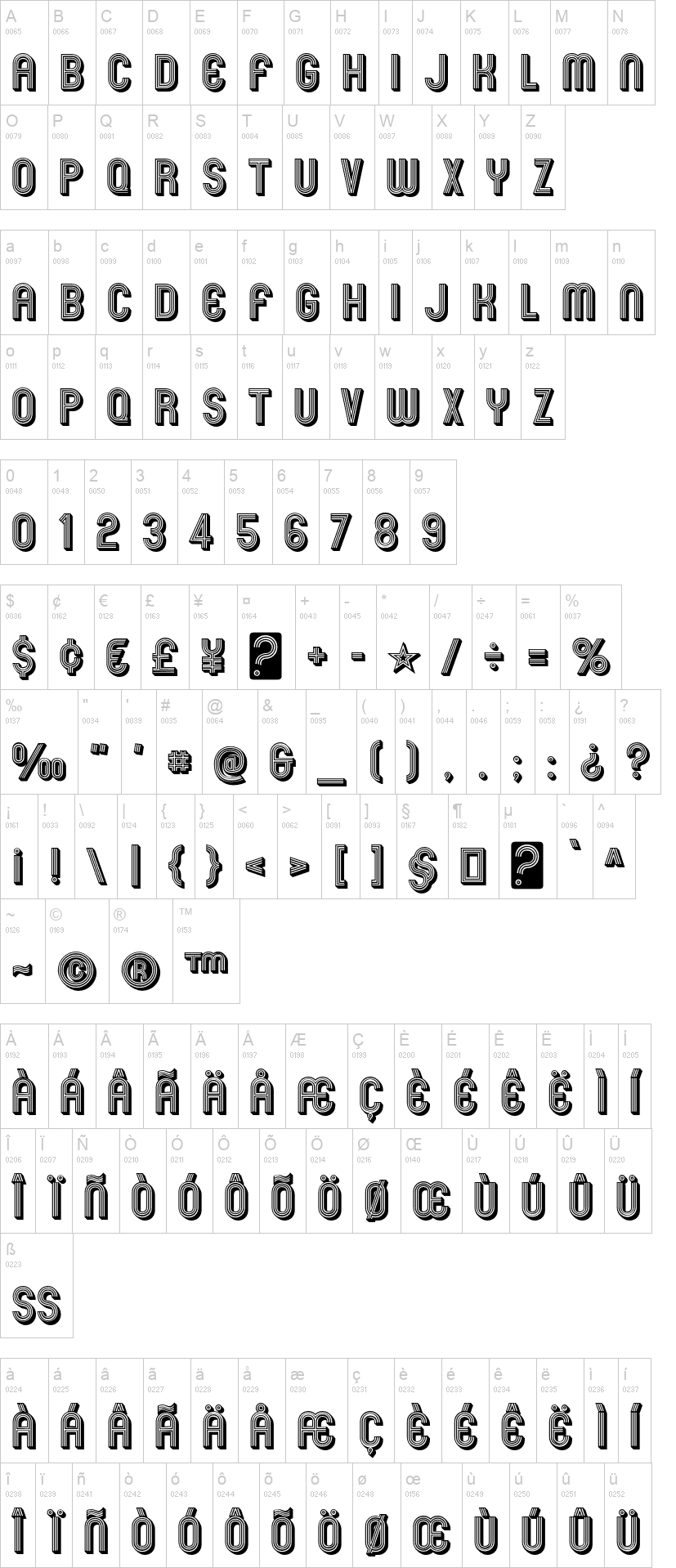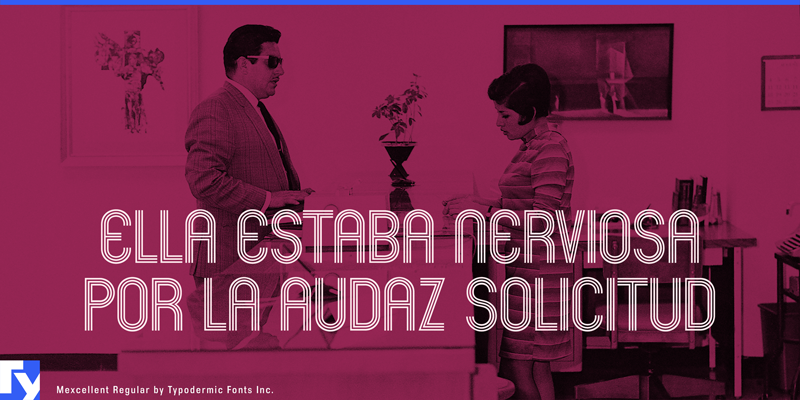
mexcellent rg.otfNote of the authorMexcellent is a tri-linear stripe typeface inspired by a custom font created for the 1968 Mexico City Olympic Games. The end result is a joyous display typeface that will add flare and panache to your creations. Layers may be combined to produce intriguing color effects. Experiment with layers to discover what innovative styles you can construct. Most Latin-based European writing systems are supported, including the following languages. Afaan Oromo, Afar, Afrikaans, Albanian, Alsatian, Aromanian, Aymara, Bashkir (Latin), Basque, Belarusian (Latin), Bemba, Bikol, Bosnian, Breton, Cape Verdean, Creole, Catalan, Cebuano, Chamorro, Chavacano, Chichewa, Crimean Tatar (Latin), Croatian, Czech, Danish, Dawan, Dholuo, Dutch, English, Estonian, Faroese, Fijian, Filipino, Finnish, French, Frisian, Friulian, Gagauz (Latin), Galician, Ganda, Genoese, German, Greenlandic, Guadeloupean Creole, Haitian Creole, Hawaiian, Hiligaynon, Hungarian, Icelandic, Ilocano, Indonesian, Irish, Italian, Jamaican, Kaqchikel, Karakalpak (Latin), Kashubian, Kikongo, Kinyarwanda, Kirundi, Kurdish (Latin), Latvian, Lithuanian, Lombard, Low Saxon, Luxembourgish, Maasai, Makhuwa, Malay, Maltese, Māori, Moldovan, Montenegrin, Ndebele, Neapolitan, Norwegian, Novial, Occitan, Ossetian (Latin), Papiamento, Piedmontese, Polish, Portuguese, Quechua, Rarotongan, Romanian, Romansh, Sami, Sango, Saramaccan, Sardinian, Scottish Gaelic, Serbian (Latin), Shona, Sicilian, Silesian, Slovak, Slovenian, Somali, Sorbian, Sotho, Spanish, Swahili, Swazi, Swedish, Tagalog, Tahitian, Tetum, Tongan, Tshiluba, Tsonga, Tswana, Tumbuka, Turkish, Turkmen (Latin), Tuvaluan, Uzbek (Latin), Venetian, Vepsian, Võro, Walloon, Waray-Waray, Wayuu, Welsh, Wolof, Xhosa, Yapese, Zapotec Zulu and Zuni.